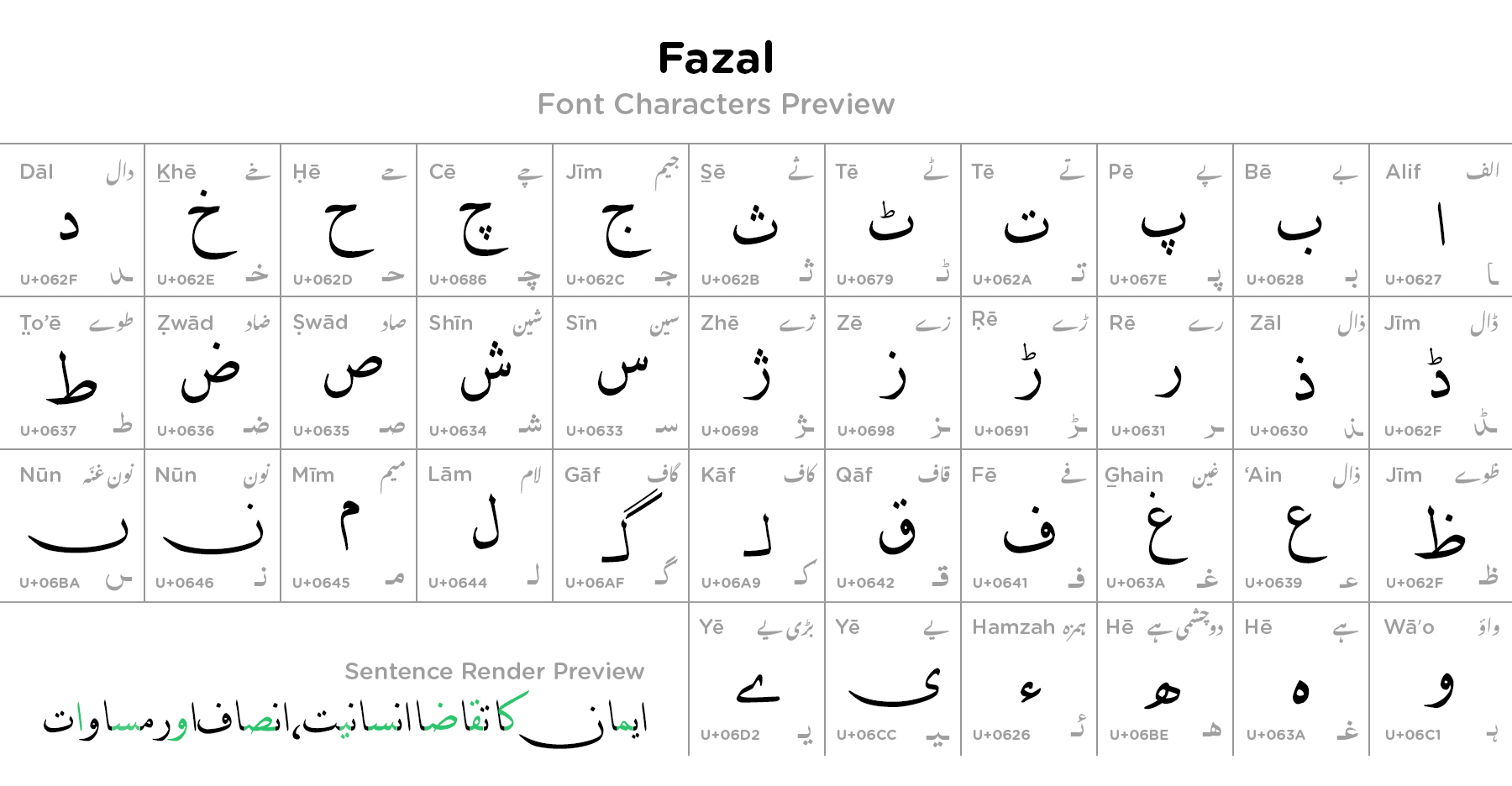
Fazal, crafted by font designer Syed Manzar Hasan Zaidi and developed by Axis Softmedia Pvt. Ltd., is a regular Urdu font released on February 29, 2016. This font style features wide letterforms and elongated rounded terminals, embodying the Qalam writing style with thick and thin contrasting letters. Despite its decorative elements, Fazal maintains high legibility on screens, even at small sizes, thanks to its clear appearance. Drawing inspiration from the Naskh and Divani scripts with modern influences, it offers 444 characters and symbols, ensuring compatibility with various languages and Unicode blocks.
With a constant thickness throughout, its strokes show a contrasting density, appearing denser in the middle and thinner near the edges. Its vertical characters are characterized by straight, formal lines with pointy edges softened by rounded corners. The consistent spacing between letters contributes to its neat and organized look. It is best suited for short texts due to its calligraphic nature and decorative elements like flowing terminals. Its versatility makes it suitable for various applications, including social media posts, posters, Islamic calligraphy, and more, where its unique style can enhance visual appeal and communication.